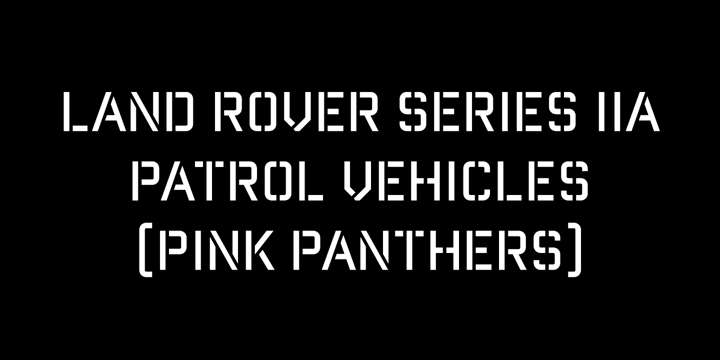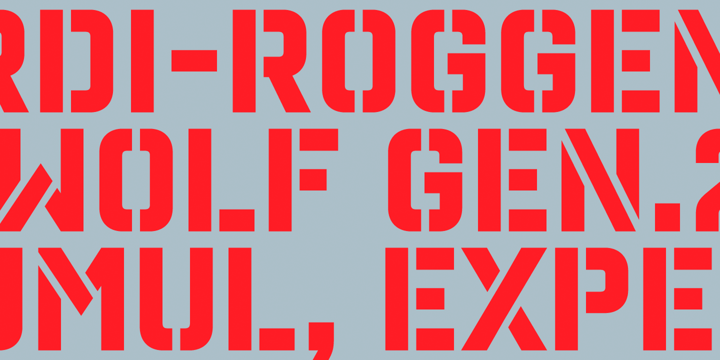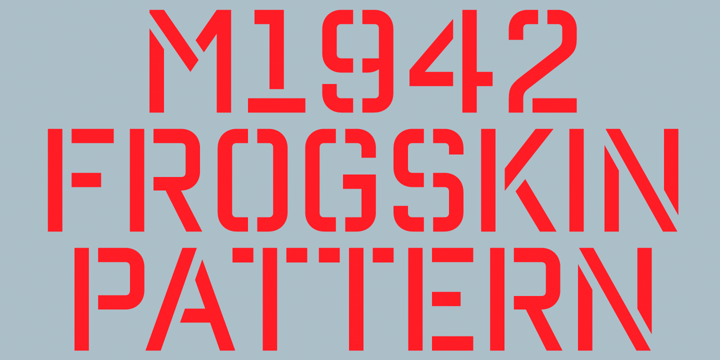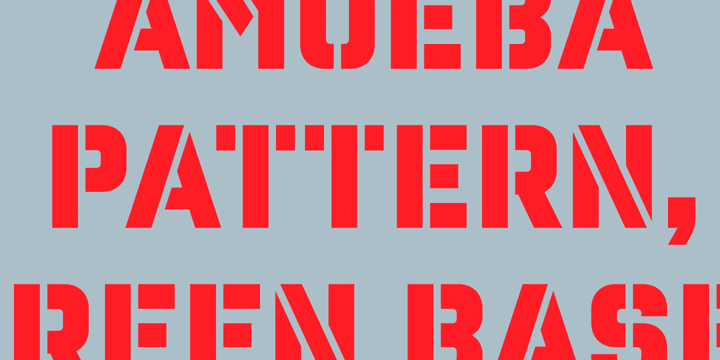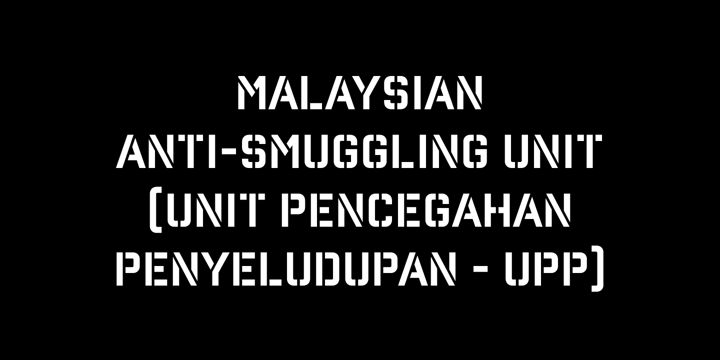
Reload Alt Stencil
About Reload Alt Stencil
Reload Alt Stencil is a rounded industrial geometric stencil typeface available in four flexible and distinct weights.Features include:Slashed zeroRomanian s accent language featureExtended language support*Requires an application with OpenType and/or…